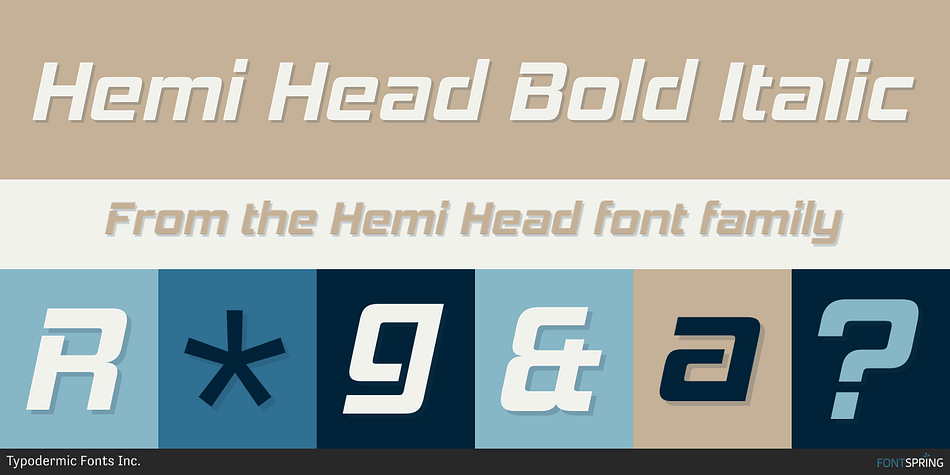
Hemi Head Bold Italic
Hemi Head is a sans serif font family. This typeface has sixteen styles and was published by Typodermic Fonts Inc.
Rev up your designs with the bold power of Hemi-Head, the square industrial typeface inspired by the classic muscle cars of the 60s and 70s. Its audacious letterforms and stylish gaps will give your message a commanding presence, instantly conveying authority and technologically superior design.
With its sleek, constructivist squareness, Hemi-Head is the perfect typeface for any project that demands strength, speed, and raw power. From high-performance automotive advertising to cutting-edge tech branding, Hemi-Head delivers the perfect blend of style and substance.
Available in 8 versatile weights and italics, Hemi-Head offers a wide range of options for any project. Choose the style that best suits your needs, from the light and nimble to the heavy and powerful, and add a touch of italicized style for even more visual impact.
So whether you’re looking to create a design that demands attention, or simply want to add a touch of muscle car style to your next project, Hemi-Head is the perfect typeface for the job. Embrace the bold, square industrial aesthetic of the 60s and 70s, and let your designs roar with power and precision.